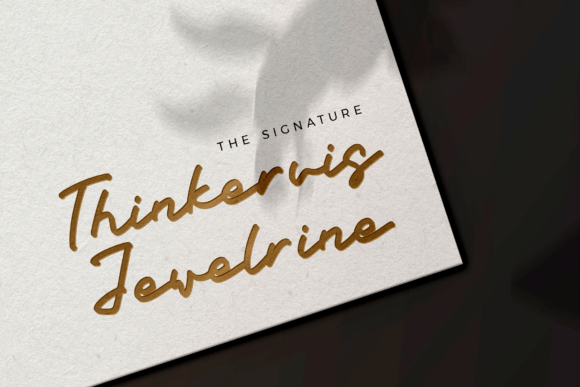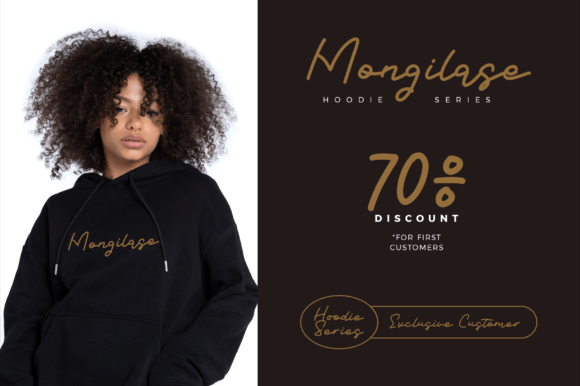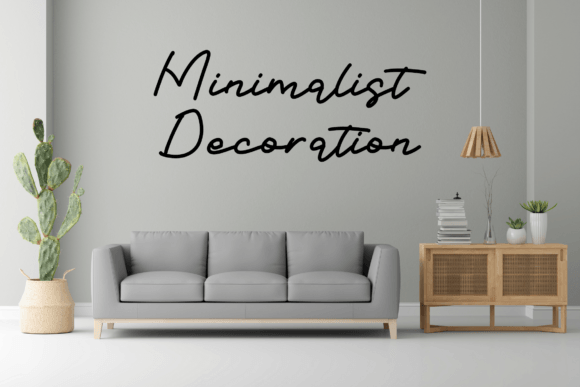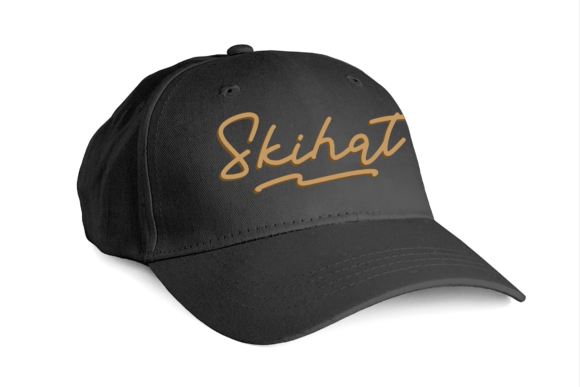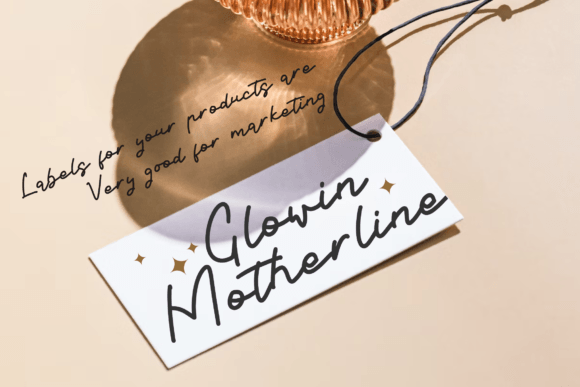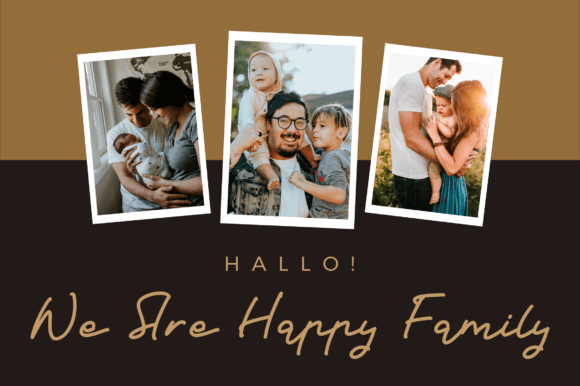
Introducing Ankelisa Shlitter: The Elegant Monoline Script Font for Creative Projects
Are you a designer or crafter looking for a beautiful script font to elevate your projects? Look no further than Ankelisa Shlitter, a stunning monoline script font from Letterfabric Studio. This versatile font is perfect for a wide range of applications, from logos and branding projects to homeware designs, product packaging, and more.
What is Ankelisa Shlitter?
Ankelisa Shlitter is a modern monoline script font that exudes elegance and sophistication. Its clean lines, flowing curves, and delicate connections make it perfect for adding a touch of refinement to any project. The font is designed to be highly legible, making it suitable for both short phrases and longer texts.
Features of Ankelisa Shlitter
- Monoline script style: Ankelisa Shlitter features a consistent line width, creating a beautiful, harmonious look.
- Elegant and refined: The font’s flowing curves and delicate connections give it a sophisticated feel.
- Highly legible: Ankelisa Shlitter is designed to be easy to read, making it perfect for a wide range of applications.
- Versatile: The font can be used for both digital and print projects.
Use Cases for Ankelisa Shlitter
Ankelisa Shlitter is suitable for a wide range of projects, including:
- Logos and branding projects: Create a lasting impression with a beautiful, elegant logo.
- Homeware designs: Add a touch of sophistication to your home decor with Ankelisa Shlitter.
- Product packaging: Make your products stand out with elegant packaging.
- Mugs, quotes, posters, and more: Add a personal touch to your everyday items.
- T-shirts, book covers, and name cards: Create unique and eye-catching designs.
- Invitation cards, greeting cards, and labels: Make your special occasions even more memorable.
- Photography and watermark: Add a professional touch to your photos.
- Special events: Create stunning event materials with Ankelisa Shlitter.
Why Choose Ankelisa Shlitter?
Ankelisa Shlitter offers a unique combination of elegance, versatility, and legibility, making it an excellent choice for designers and crafters. Here are just a few reasons why:
- Unique and distinctive: Ankelisa Shlitter stands out from other script fonts with its monoline style and elegant curves.
- Easy to use: The font is highly legible and easy to work with, making it perfect for a wide range of projects.
- High-quality design: Ankelisa Shlitter is designed with precision and attention to detail, ensuring a professional finish.
Ankelisa Shlitter is a beautiful monoline script font that offers a world of creative possibilities. Its elegant design, versatility, and legibility make it an excellent choice for designers and crafters looking to add a touch of sophistication to their projects. Whether you’re working on a logo, branding project, or homeware design, Ankelisa Shlitter is sure to impress.